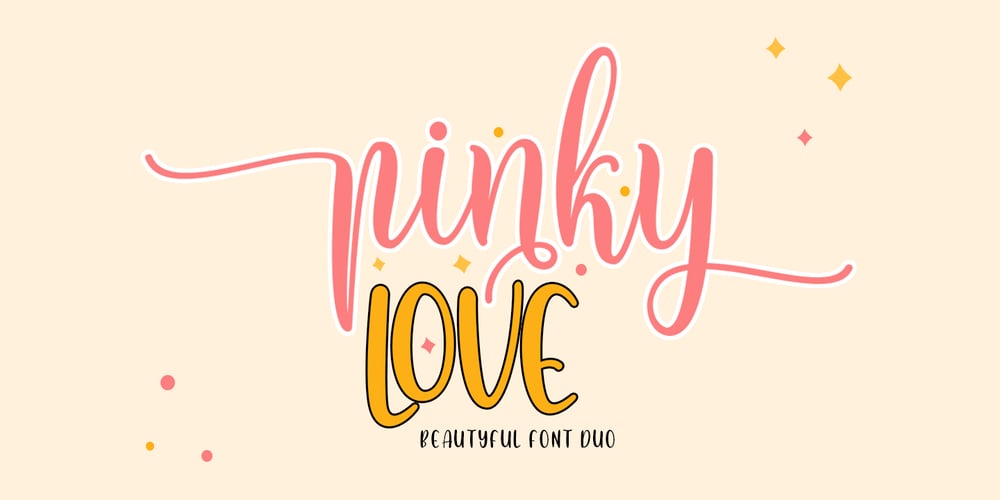
Pinky Love
Pinky Love font
Pinky Love Font Family was designed by Muhajir Akarim and published by Soft Creative. Pinky Love contains 2 styles and family package options. Allow me to introduce Pinky Love Font.A carefully crafted collection of fonts combining informal, romantic, sweet, lovely design elements and hand-drawn typographic design elements.Pinky Love Font has many alternative characters, including multiple language support. You can use this font for your work very easily. Because there are many features in it. Contains a full set of upper and lower case letters, punctuation marks, numbers, and multilingual support.